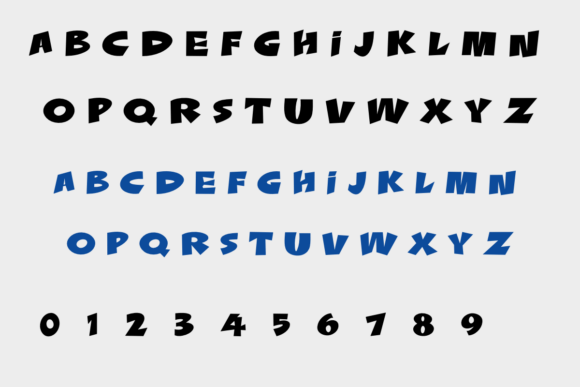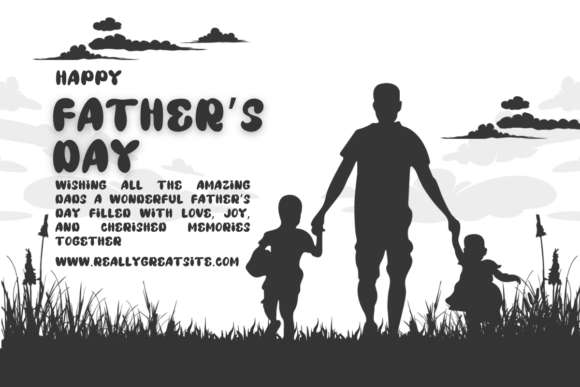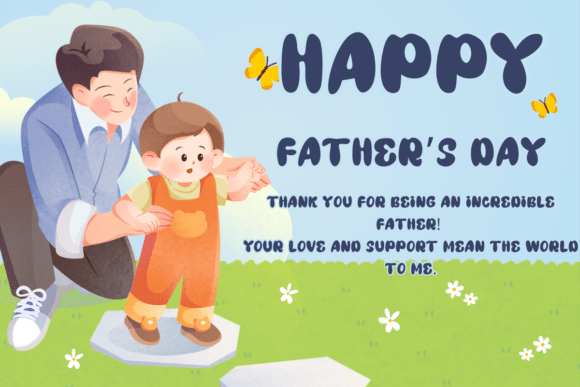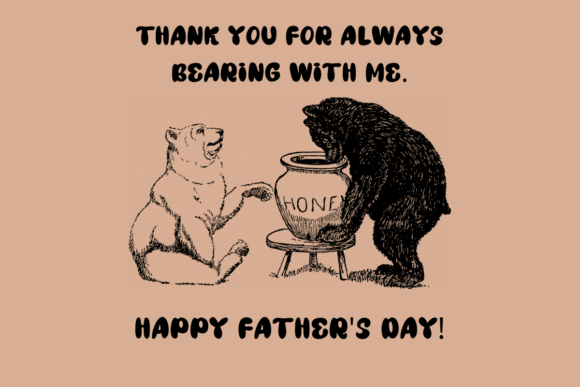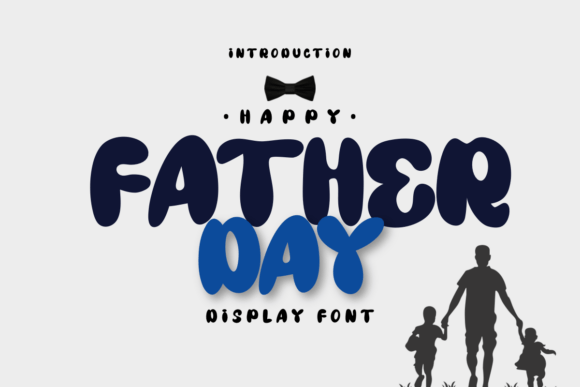
Introducing Happy Father Day Font: The Perfect Addition to Your Father’s Day Projects
Are you looking for a font that captures the warmth and joy of Father’s Day? Look no further than the Happy Father Day Font! This delightful font is specifically designed to bring a smile to your loved ones’ faces, making it the perfect choice for heartfelt Father’s Day projects. In this article, we’ll dive into the features and benefits of Happy Father Day Font, and explore how you can use it to create stunning designs for cards, printables, children’s crafts, and family-centered branding.
A Joyful and Chunky Display Font
Happy Father Day Font is a joyful and chunky display font that exudes a friendly personality. Its soft, rounded letterforms are carefully crafted to evoke a sense of warmth and approachability, making it an ideal choice for designs that require a personal touch. Whether you’re creating a Father’s Day card, a printable gift tag, or a social media post, this font is sure to bring a touch of joy and whimsy to your design.
Perfect for Father’s Day Projects
Happy Father Day Font is specifically designed for Father’s Day projects, making it the perfect choice for designers and crafters who want to create memorable and meaningful designs. With this font, you can create:
- Heartfelt Father’s Day cards that will make your loved ones feel special
- Printable gift tags and decorations that add a personal touch to your gifts
- Children’s crafts that are fun and engaging, such as coloring pages and activity sheets
- Family-centered branding that reflects your love and appreciation for your family
Key Features of Happy Father Day Font
So, what makes Happy Father Day Font so special? Here are some of its key features:
- Soft and rounded letterforms: The font’s soft and rounded letterforms give it a friendly and approachable personality.
- Chunky display font: The font’s chunky design makes it perfect for display purposes, such as headings and titles.
- Easy to read: The font is designed to be easy to read, even at small sizes.
- Versatile: The font is versatile and can be used for a wide range of design projects, from cards and printables to children’s crafts and family-centered branding.
Tips for Using Happy Father Day Font
Here are some tips for using Happy Father Day Font in your designs:
- Pair it with complementary fonts: Pair Happy Father Day Font with complementary fonts to create visual interest and hierarchy in your design.
- Use it for headings and titles: Use Happy Father Day Font for headings and titles to add a touch of personality and whimsy to your design.
- Experiment with colors: Experiment with different colors to find the perfect combination that matches your design’s theme and tone.
- Have fun: Most importantly, have fun and be creative with Happy Father Day Font!